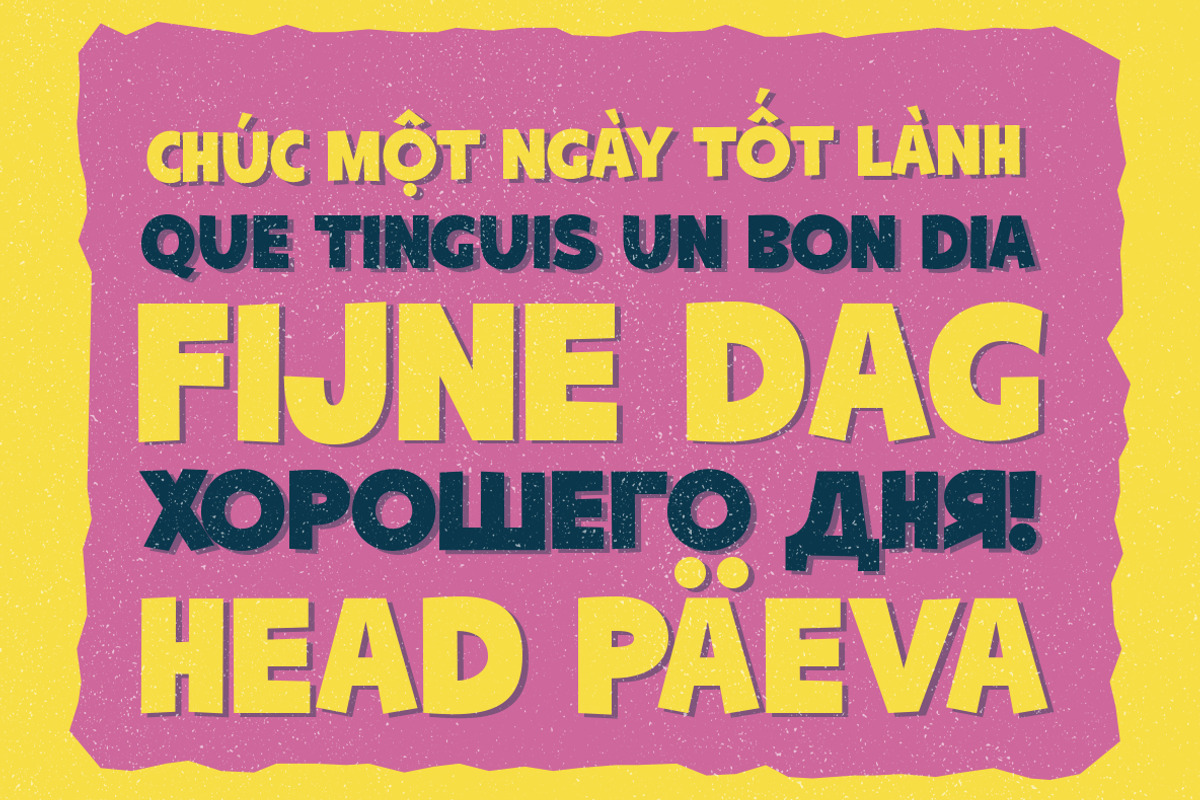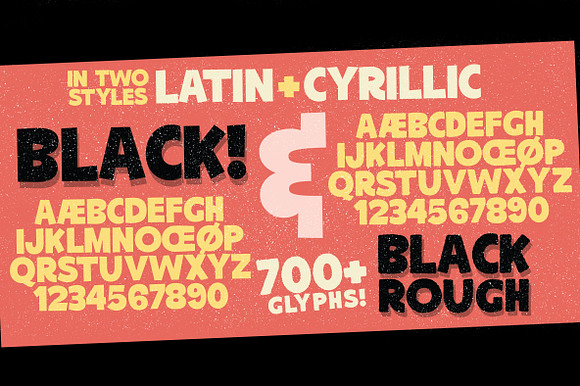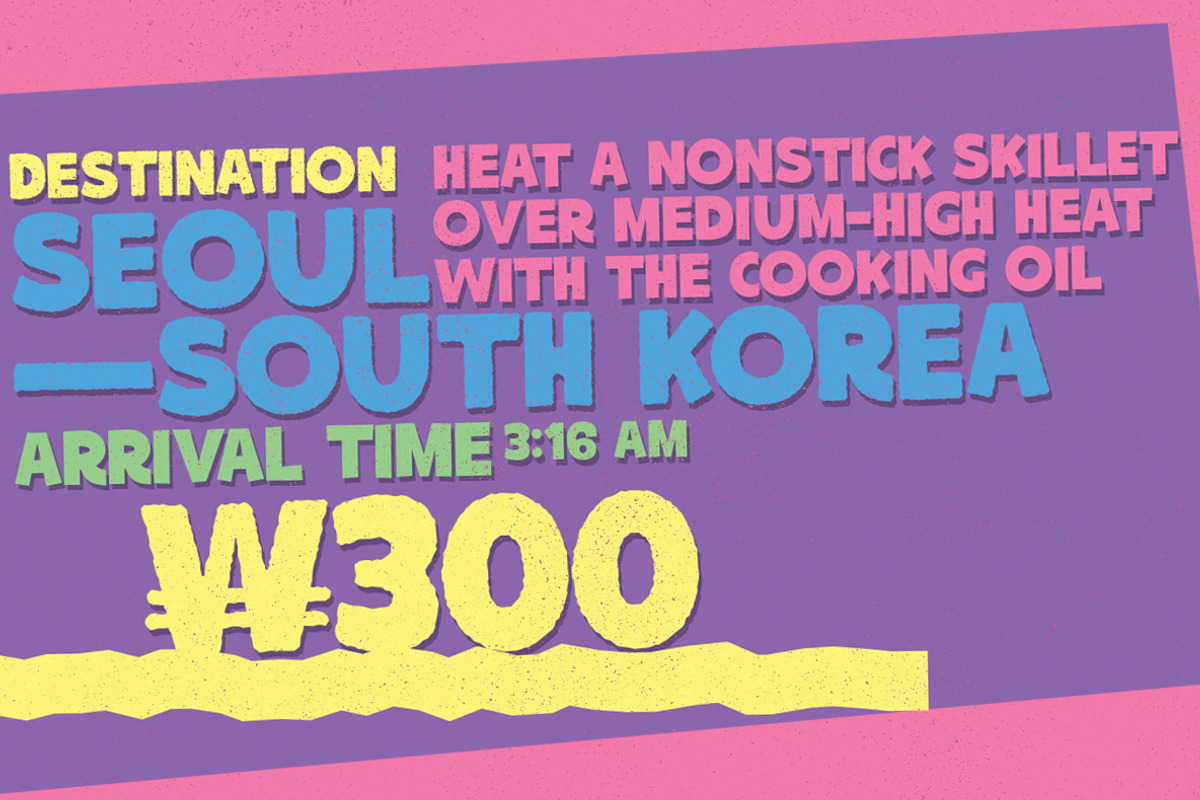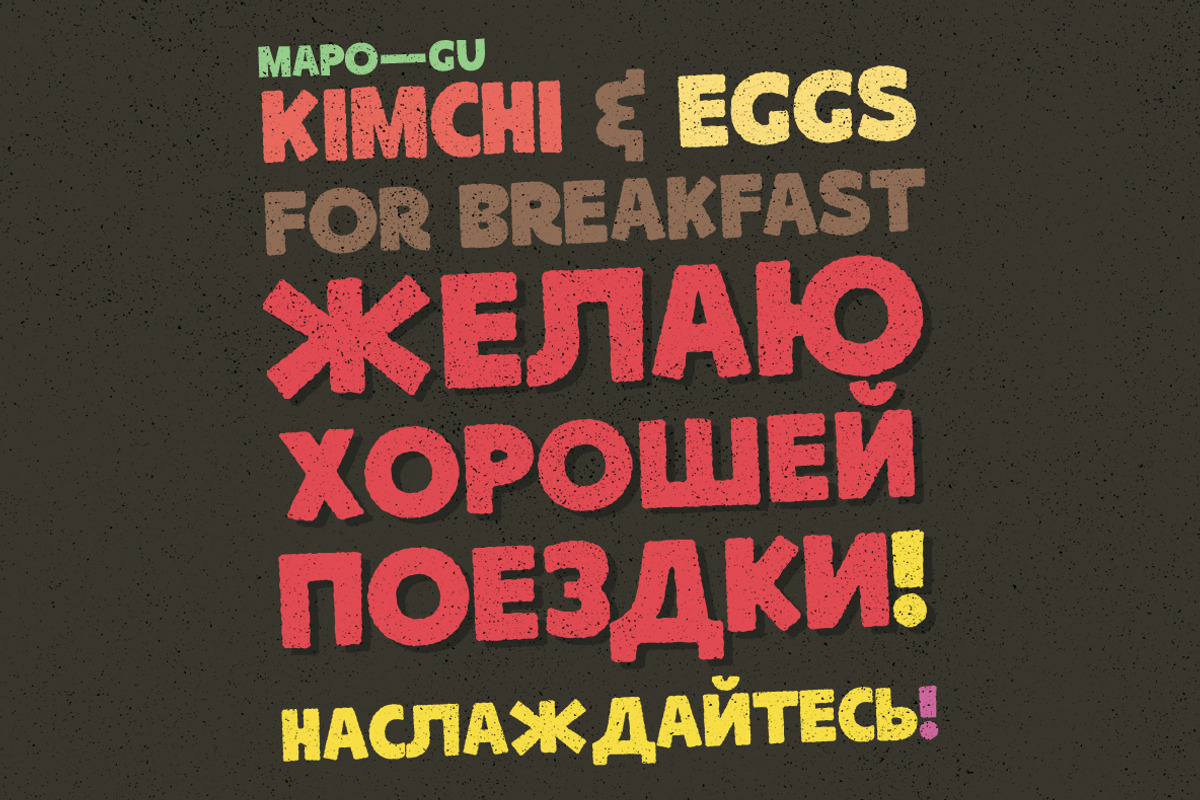
TOMO Bossa
TOMO Bossa is ideal for kids related stuff in print or digital, like posters, video, websites and so on. This beauty cartoonish sans-serif also speak Cyrillic! With more than 700 Glyphs! Enjoy.
- TOMO Bossa Black
- TOMO Bossa Black Rough